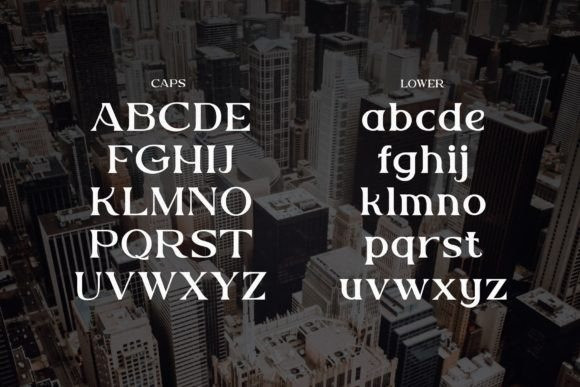
Valerius Font
Valerius is a serif typeface inspired by luxury hotels, fashion brands, and magazines. This typeface displays elegance and royalty, which makes it perfect for branding, packaging, print, editorials, badges, and much more.